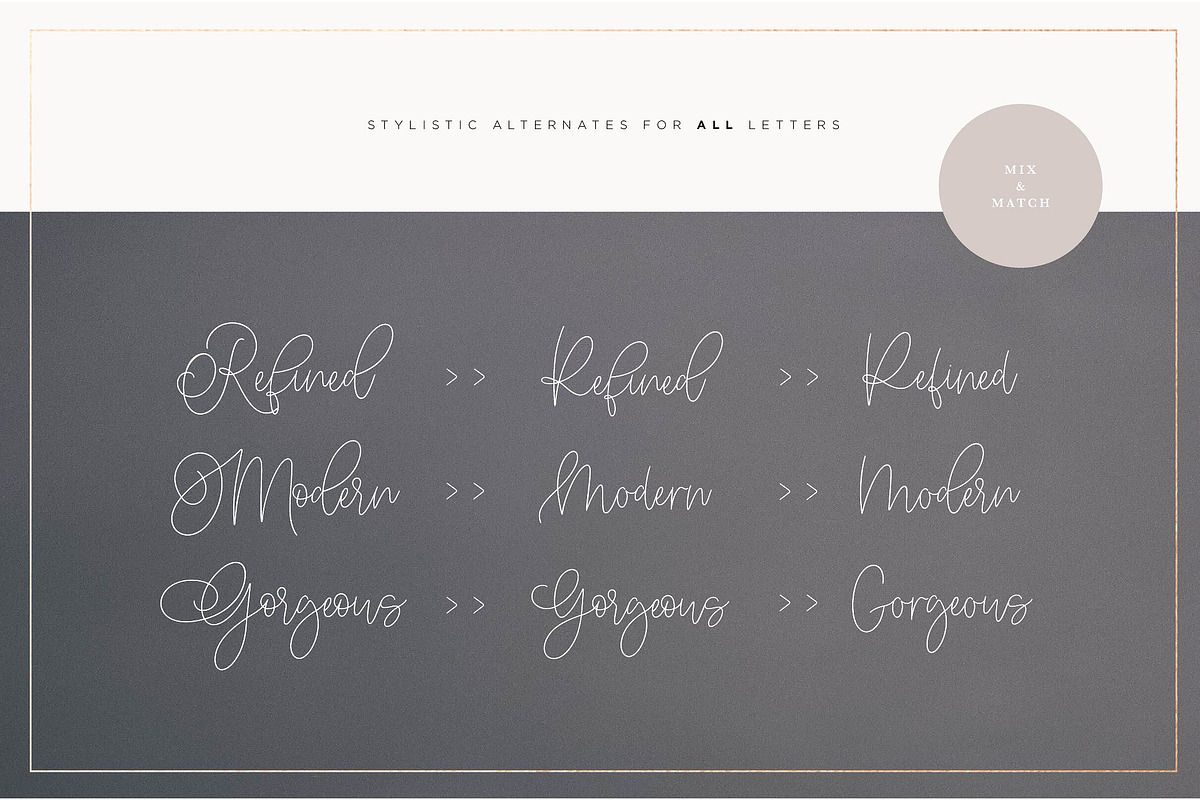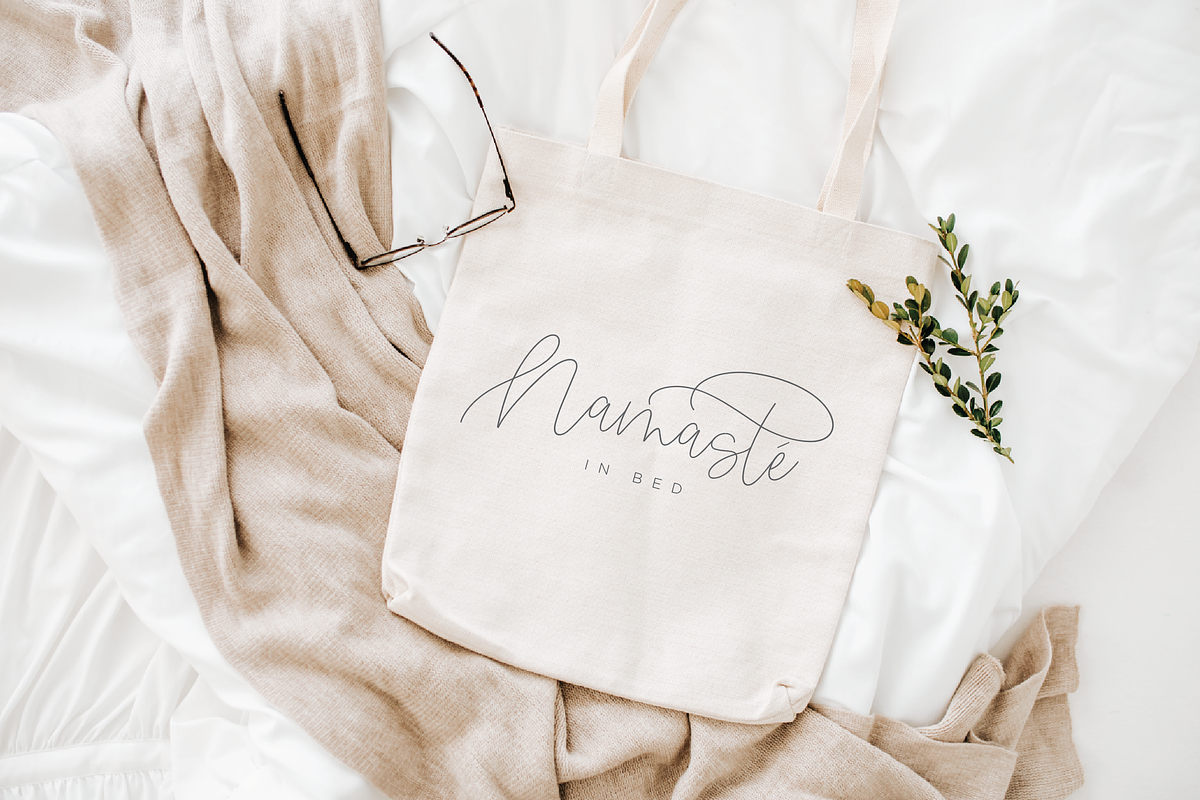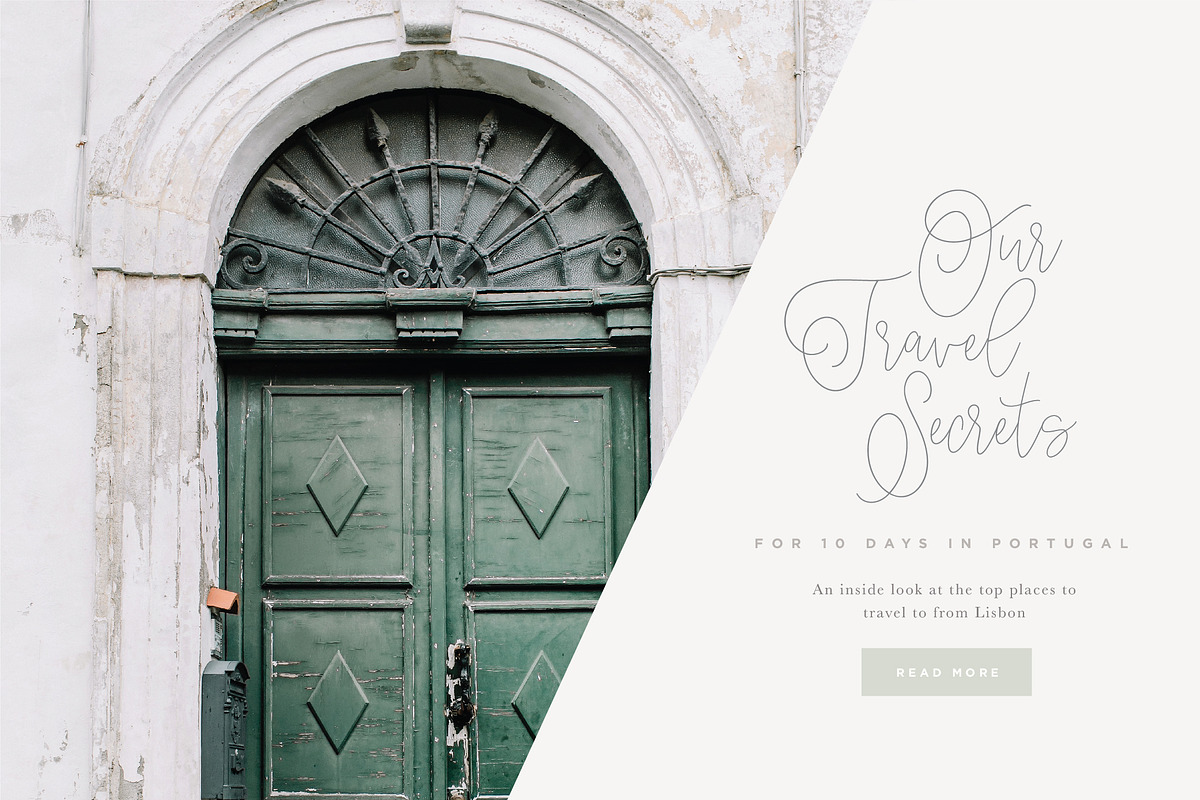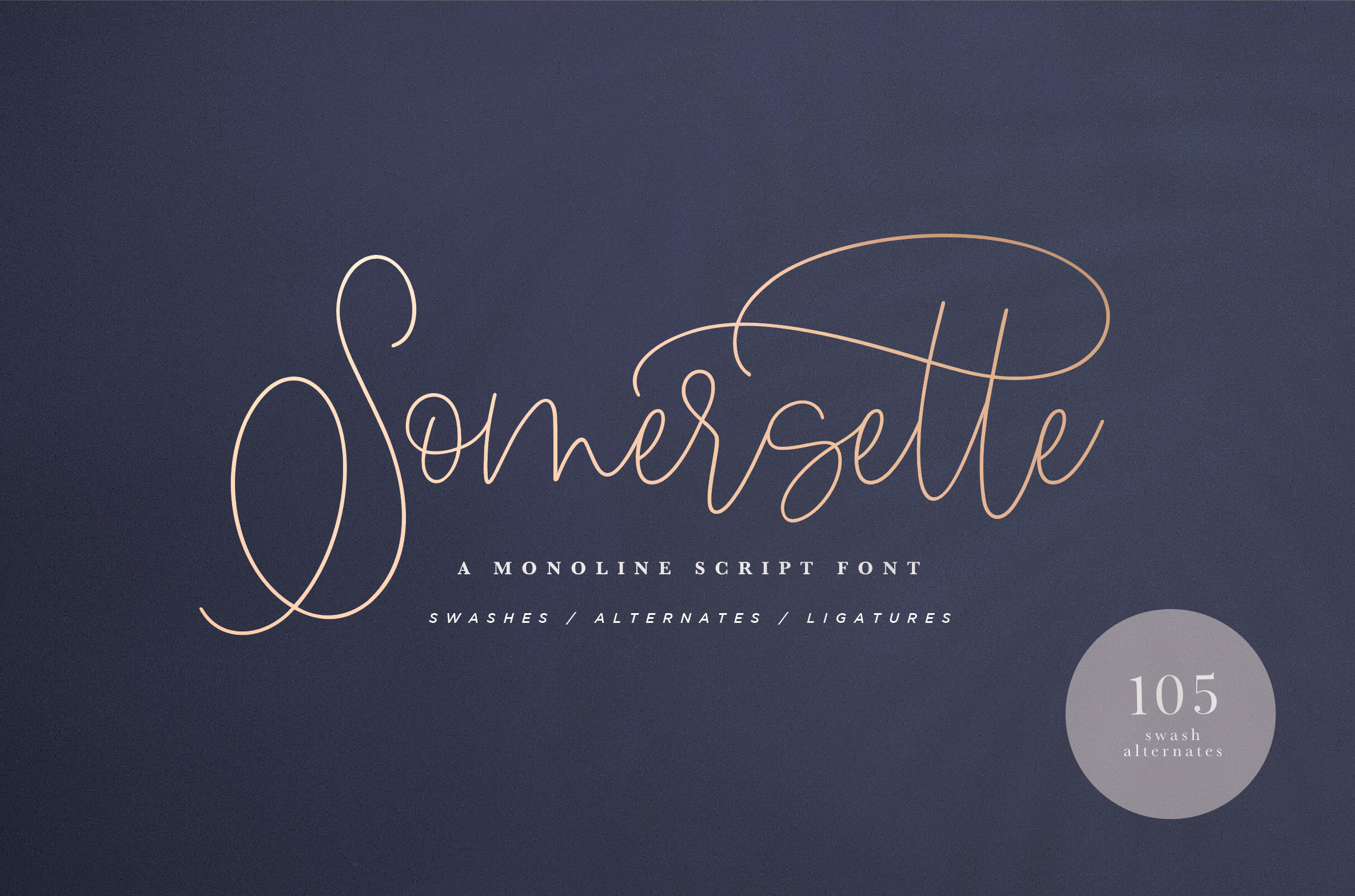
Somersette Script Font
Introducing the elegant new Somersette Monoline Script Font! If you are needing a touch of casual chic calligraphy for your designs, this font was created for you!
Somersette was built with OpenType features and includes beginning and ending swashes, alternate characters for both lowercase and uppercase letters, loads of different swash alternates for lowercase letters, numbers, punctuation, alternates, ligatures and it also supports other languages :) Over 500 glyphs!
- Multilingual Support is included for Western European Languages (Cornish, Danish, English, Estonian, Faroese, Filipino, Finnish, French, Friulian, Galician, German (Switzerland), Gusii, Icelandic, Indonesian, Irish, Italian, Kabuverdianu, Kalenjin, Kinyarwanda, Luo, Luxembourgish, Norwegian Bokmål, Norwegian Nynorsk, Portuguese, Romansh, Scottish Gaelic, Spanish, Swedish, Swiss German)